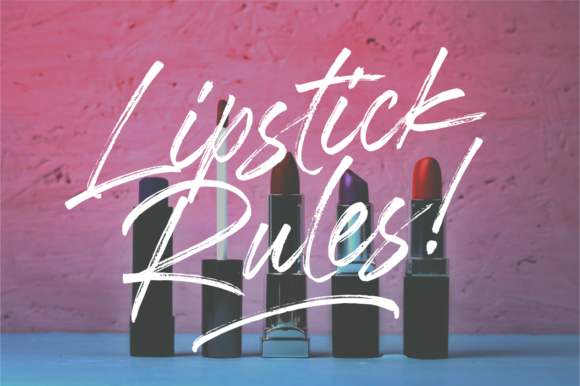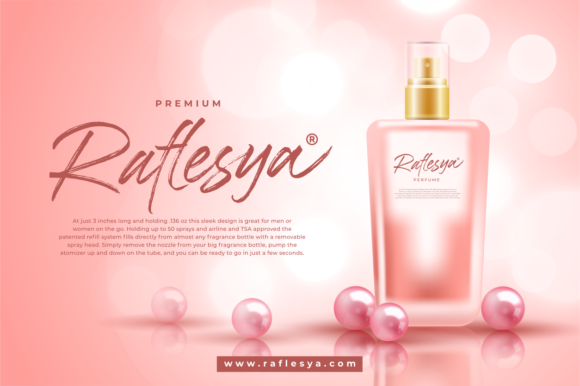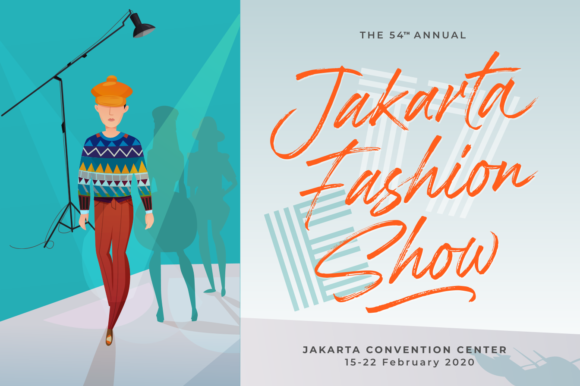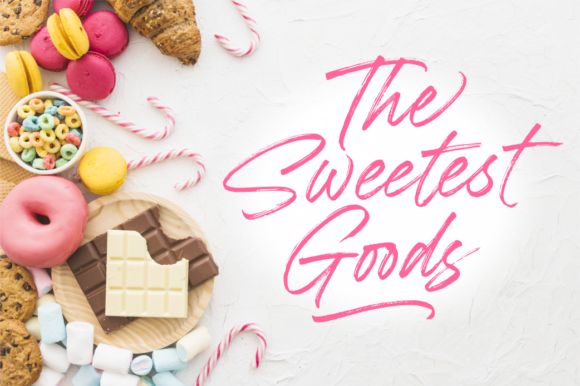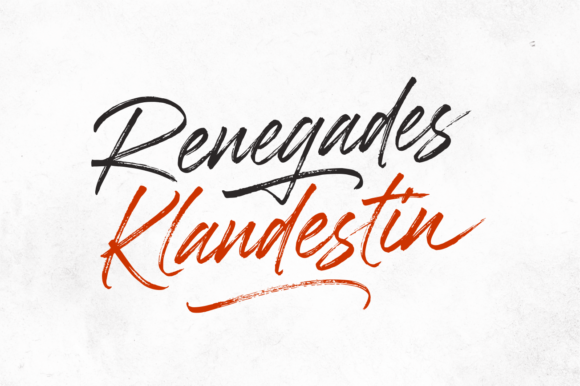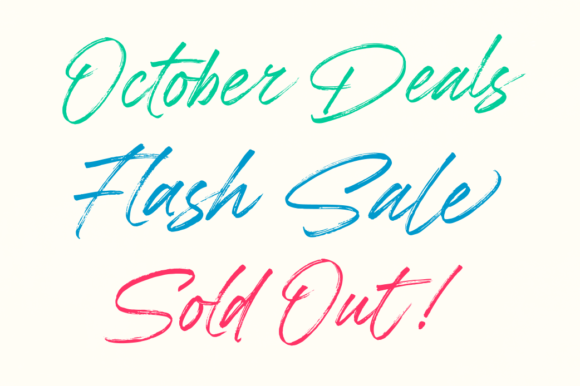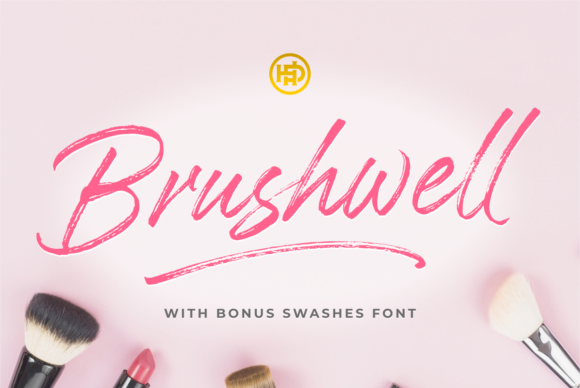
Introducing Brushwell Font: Adding a Touch of Authenticity to Your Designs
Are you tired of using the same old fonts in your design projects? Look no further than Brushwell Font, a dynamic and playful script that adds a splash of authenticity to any design. With its unique brushed look, Brushwell Font is perfect for designers and crafters looking to add a personal touch to their work.
What is Brushwell Font?
Brushwell Font is a script font that mimics the look of hand-brushed lettering. Its dynamic and playful strokes give it a one-of-a-kind feel that’s sure to make your designs stand out. Whether you’re working on a logo, packaging, or social media graphics, Brushwell Font is the perfect choice for adding a touch of personality to your work.
Key Features of Brushwell Font
• Unique Brushed Look: Brushwell Font features a distinctive brushed look that’s perfect for adding a touch of authenticity to your designs.
• Dynamic and Playful: With its dynamic and playful strokes, Brushwell Font is sure to add a splash of personality to any design project.
• Script Font: Brushwell Font is a script font that’s perfect for use in a variety of design projects, from logos and packaging to social media graphics and more.
• Use it for Headlines: Brushwell Font is perfect for use in headlines and titles. Its bold and playful strokes make it easy to read and add a touch of personality to your designs.
• Add a Personal Touch: Use Brushwell Font to add a personal touch to your designs. Its unique brushed look gives it a handmade feel that’s perfect for crafters and small business owners.
• Experiment with Colors: Brushwell Font looks great in a variety of colors. Experiment with different colors and textures to add depth and interest to your designs.
• Adds Authenticity: Brushwell Font adds a touch of authenticity to your designs. Its unique brushed look gives it a handmade feel that’s perfect for crafters and small business owners.
• Stand Out from the Crowd: Brushwell Font is a one-of-a-kind font that’s sure to make your designs stand out from the crowd.
• Versatile: Brushwell Font is a versatile font that can be used in a variety of design projects, from logos and packaging to social media graphics and more.
Brushwell Font is perfect for designers and crafters who want to add a personal touch to their work. Here are a few examples of who might benefit from using Brushwell Font:
• Graphic Designers: Brushwell Font is perfect for graphic designers who want to add a unique touch to their designs.
• Crafters: Brushwell Font is perfect for crafters who want to add a personal touch to their handmade products.
• Small Business Owners: Brushwell Font is perfect for small business owners who want to add a touch of personality to their branding.
In conclusion, Brushwell Font is a dynamic and playful script font that adds a splash of authenticity to any design project. With its unique brushed look and easy-to-use design, Brushwell Font is perfect for designers and crafters looking to add a personal touch to their work. Whether you’re working on a logo, packaging, or social media graphics, Brushwell Font is the perfect choice for adding a touch of personality to your designs.